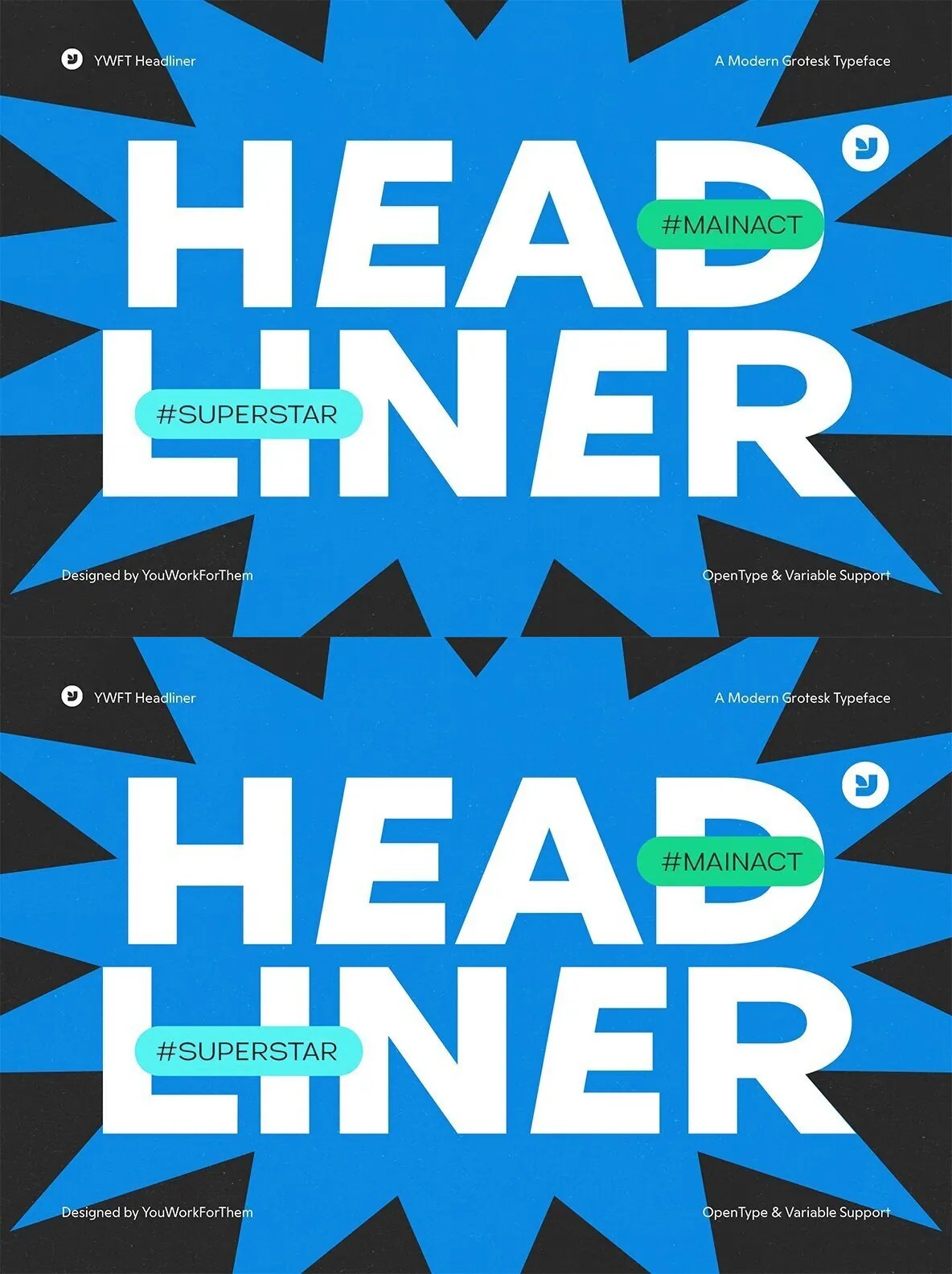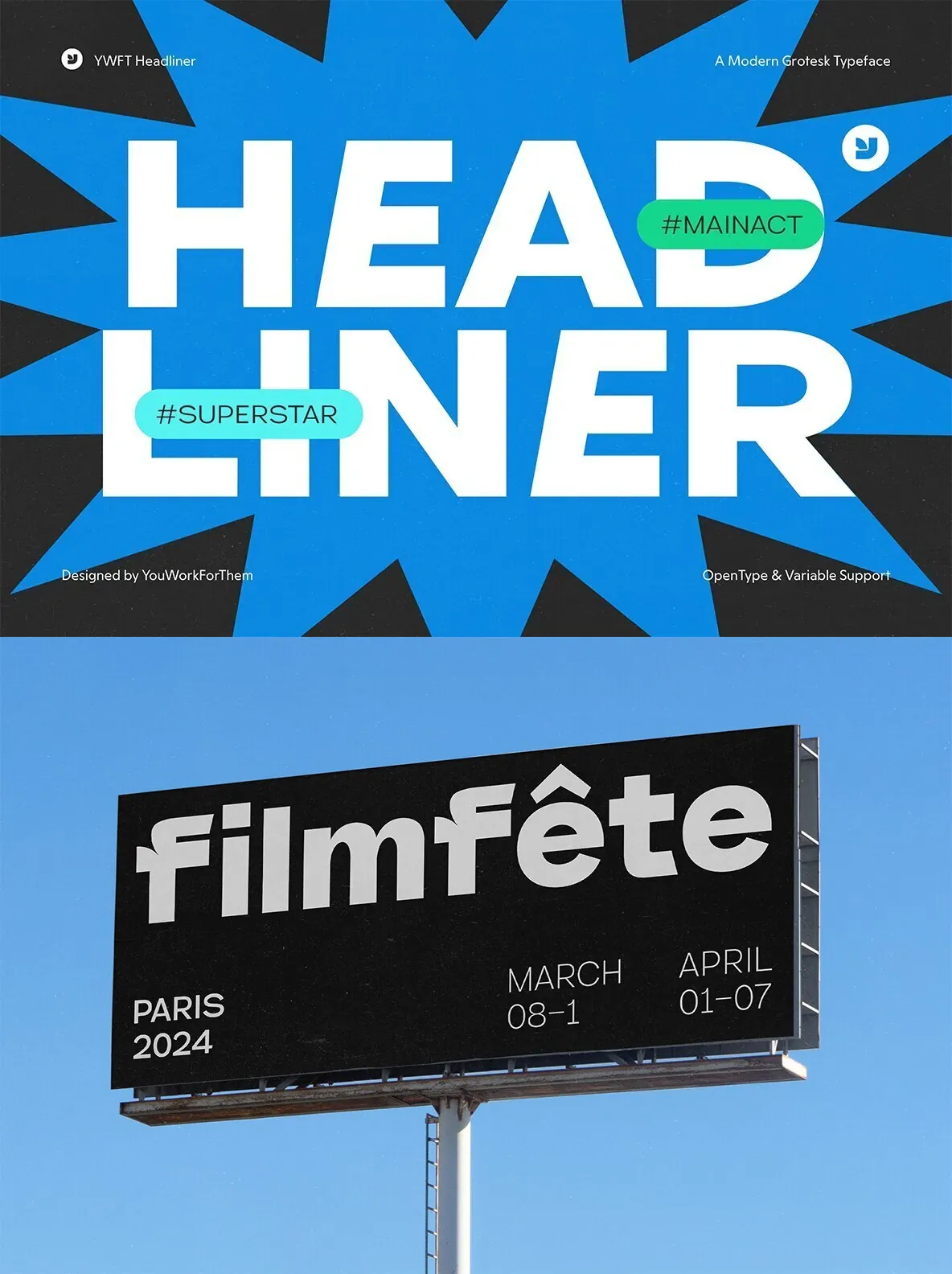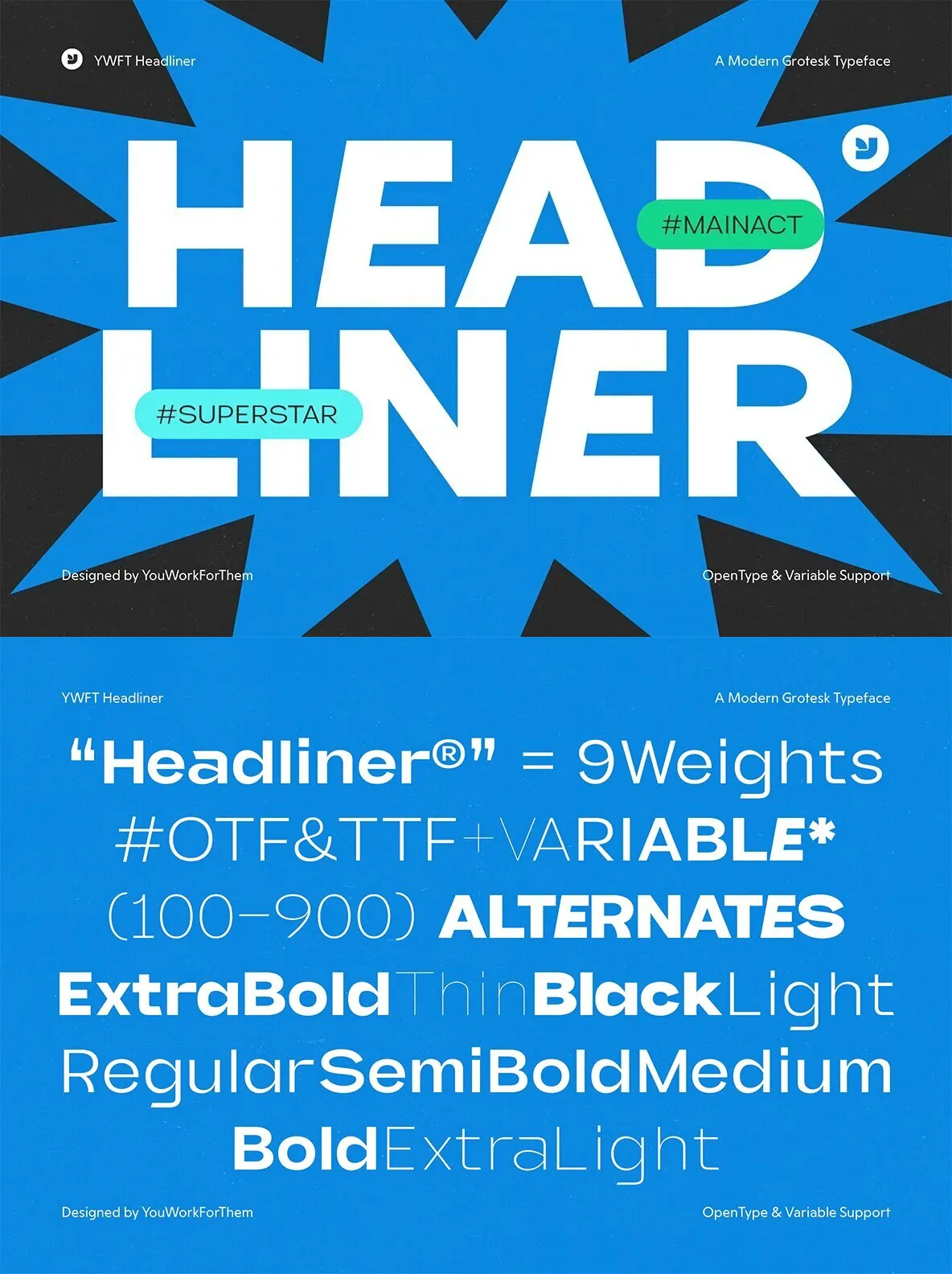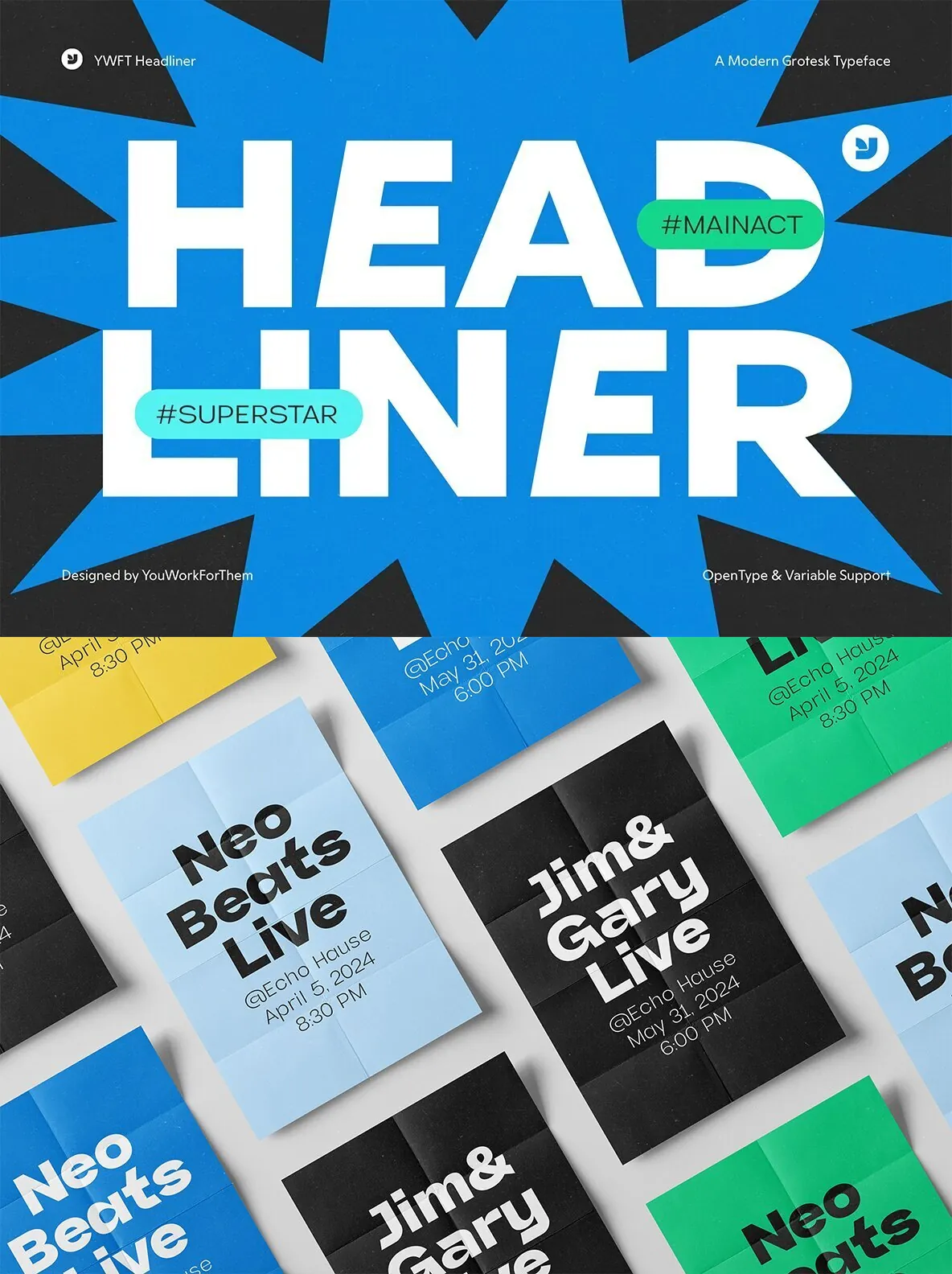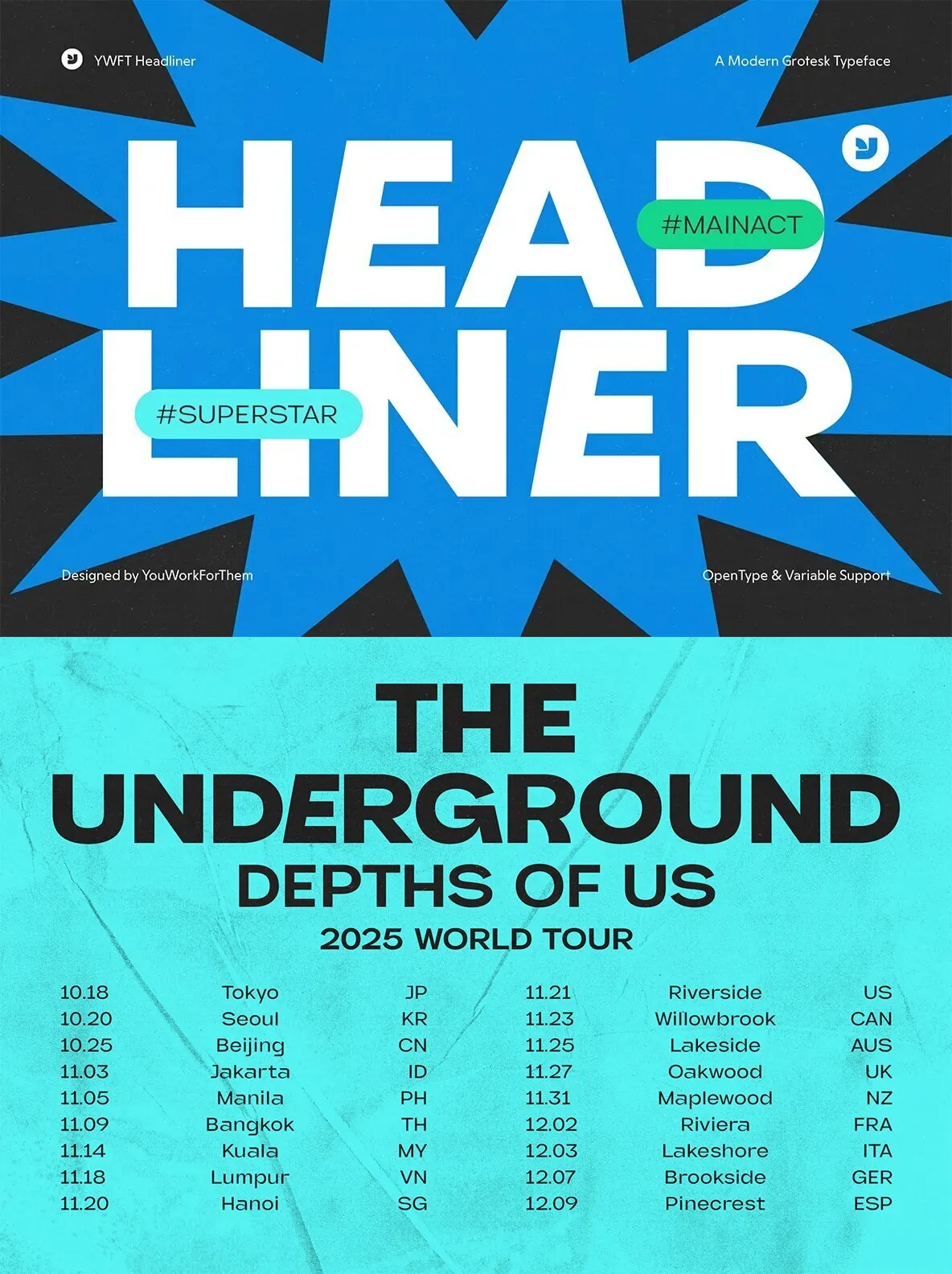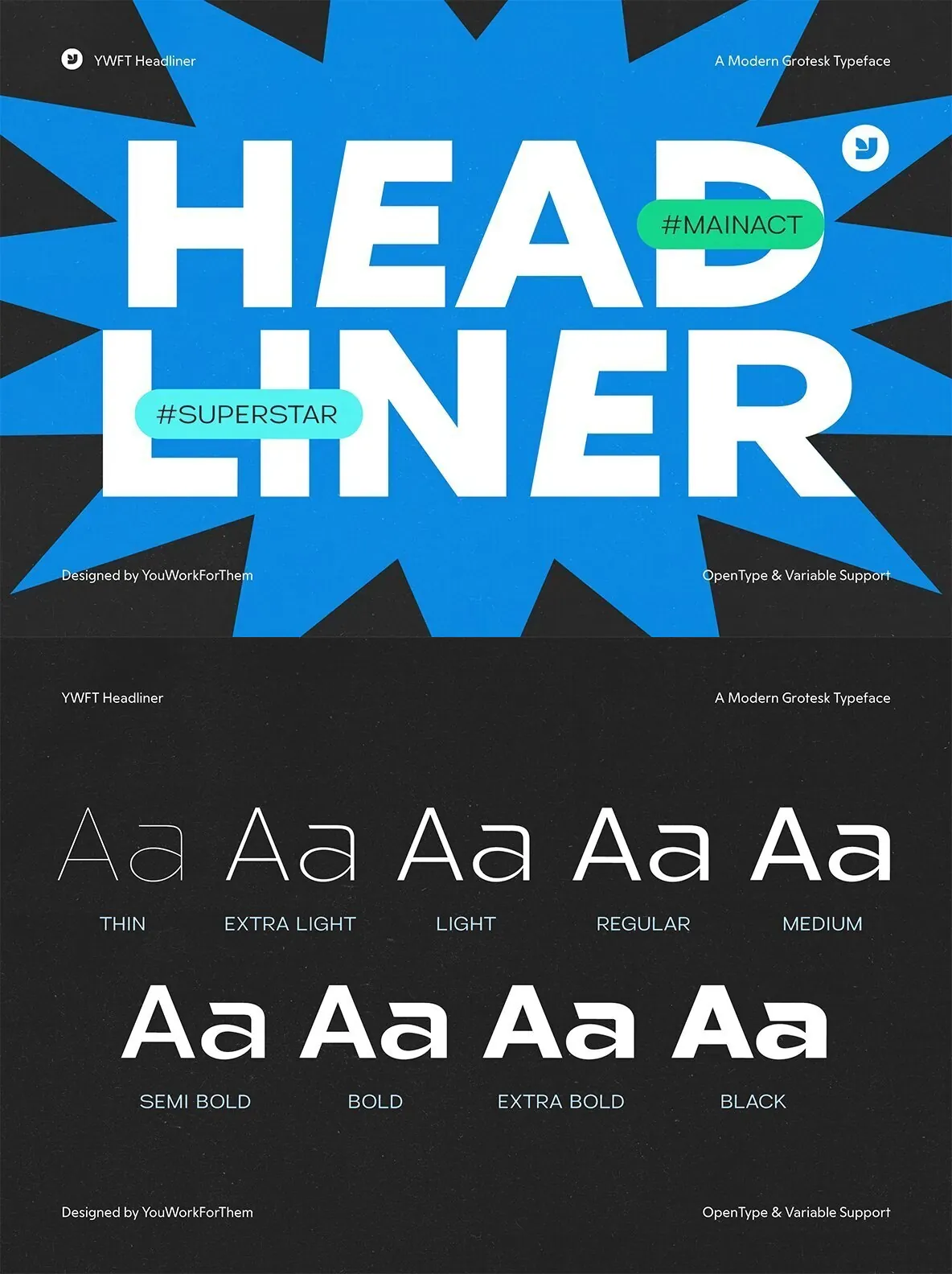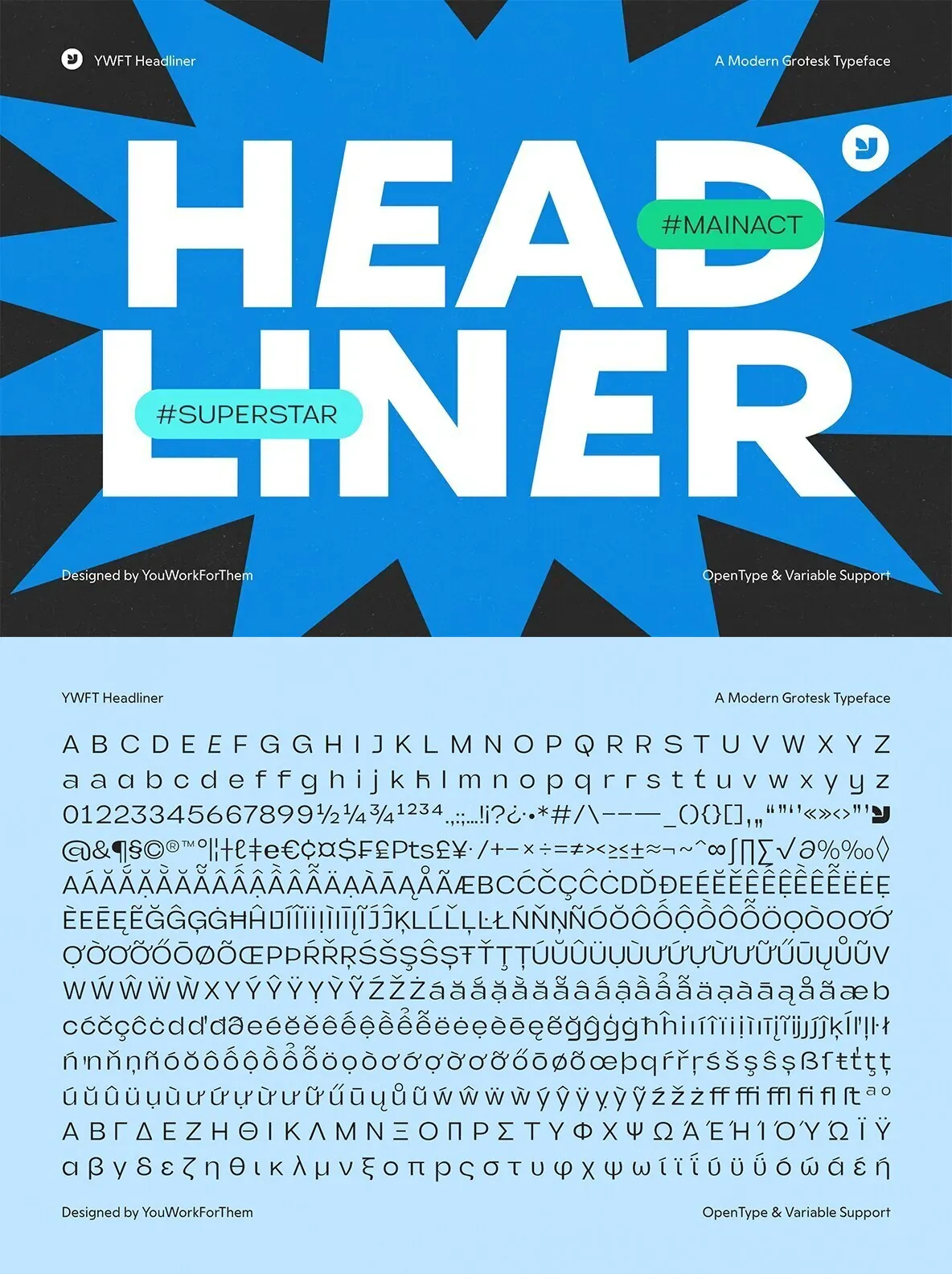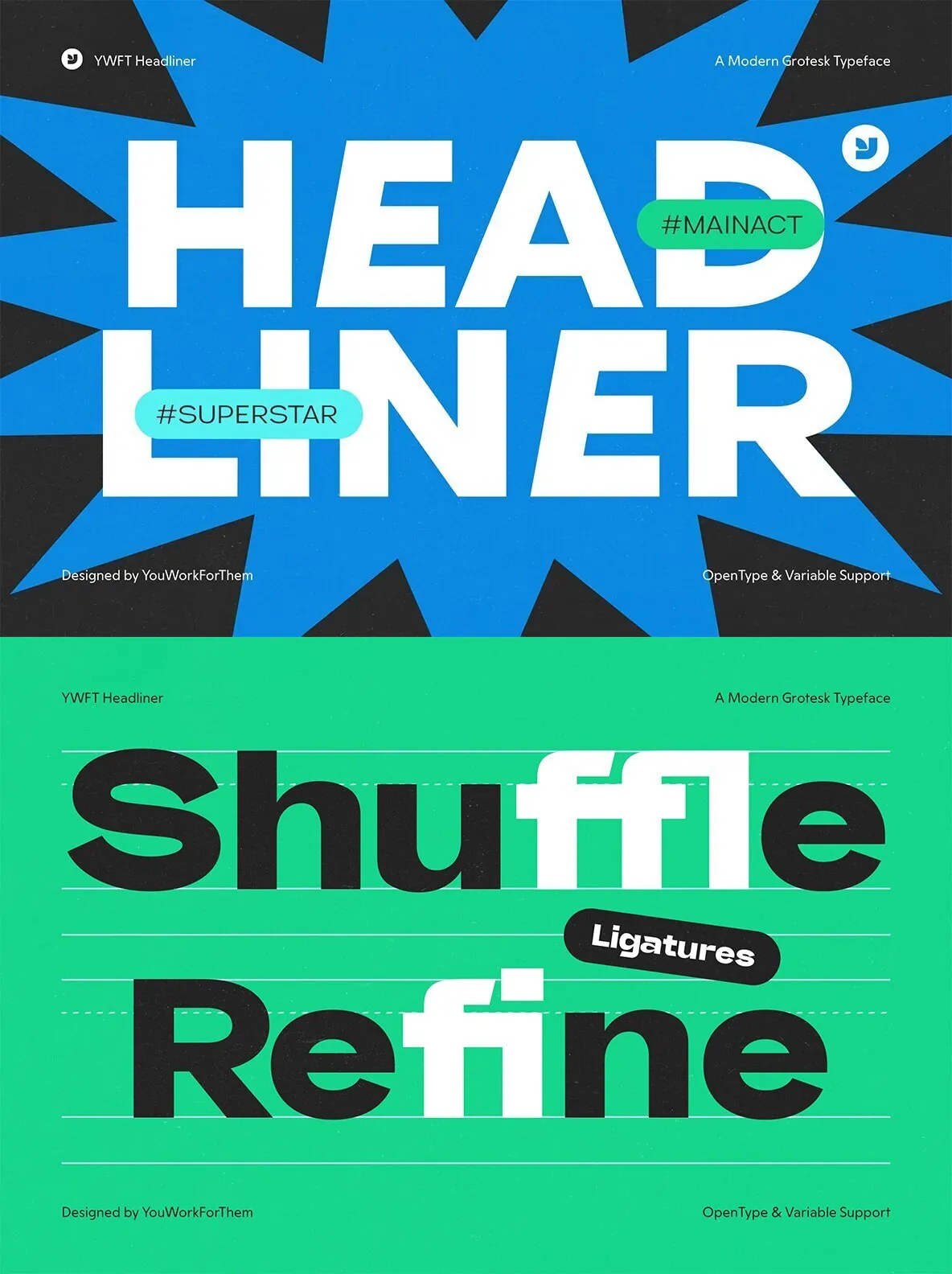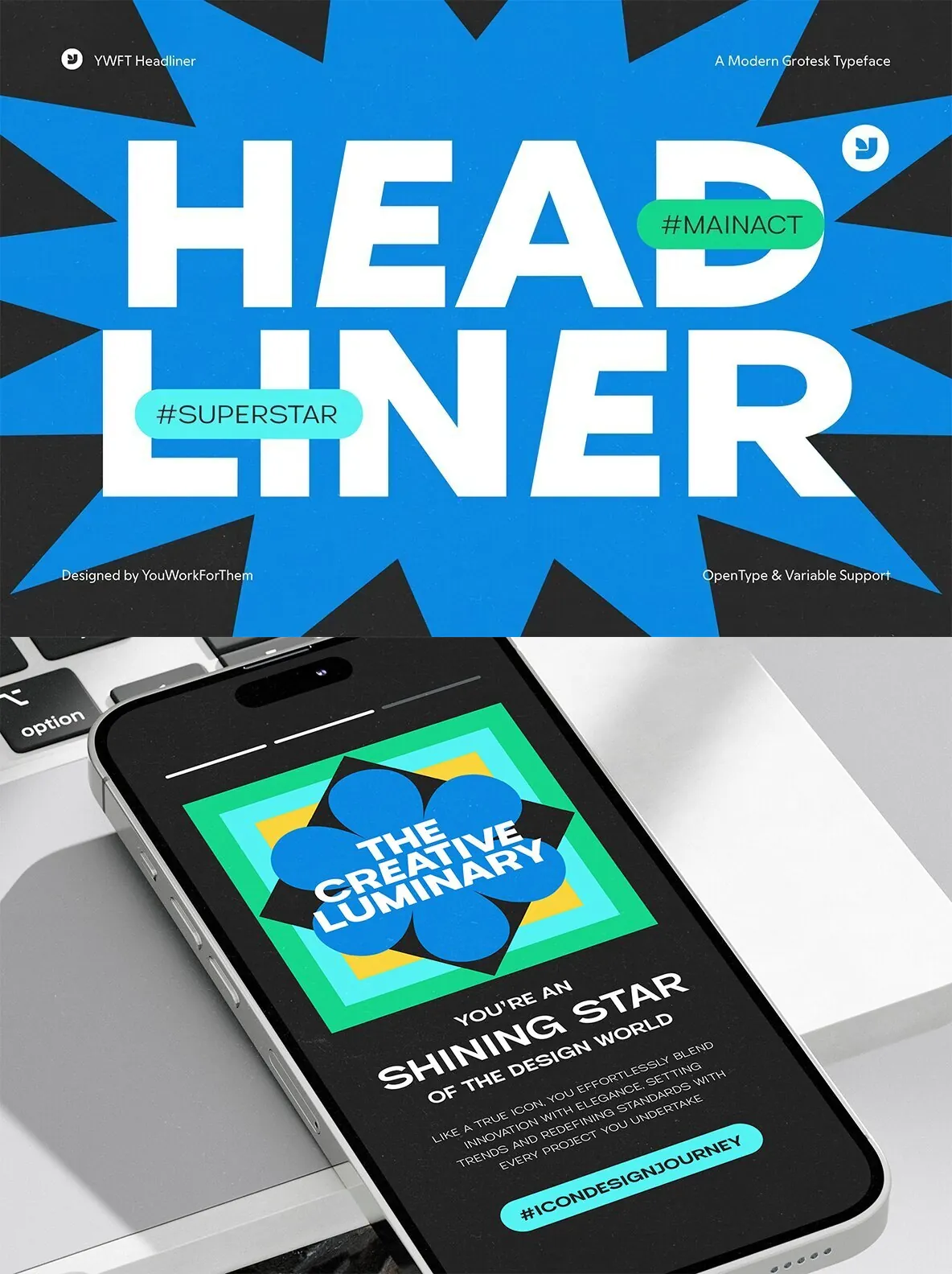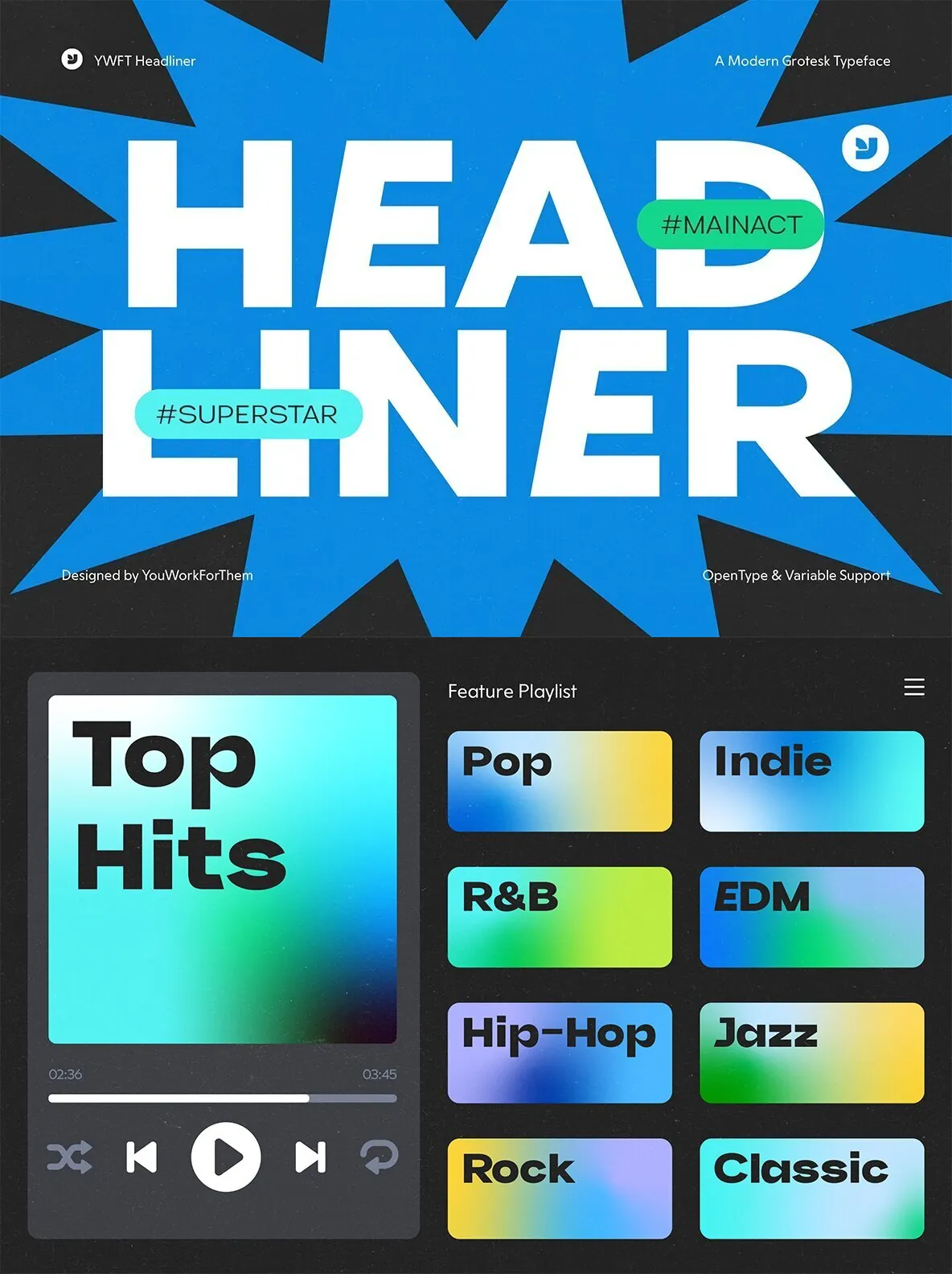
YWFT Headliner Font
YWFT Headliner — The Typeface Behind the Brand
YWFT Headliner is the grotesque sans-serif at the core of YouWorkForThem’s own identity. Designed in-house, it draws from the visual language of classic event typography while staying practical for digital-first work. Nine weights run from hairline-thin to full Black, with a variable font that spans the entire range in a single file. The 2026 update brings the most significant refinements since its release: redrawn letterforms on key characters including S, a, O, g, b, d, c, and C, a near-complete kerning rework across all weights, improved spacing with particular attention to the lighter cuts, and over 40 new glyphs. Curve quality is up while node count is down by as much as 40%.
Design & Visual Character
Headliner sits in the grotesque tradition — think the warmth of Aktiv Grotesk or the approachability of Proxima Nova — but with more personality at large sizes and very unique alternate options. The letterforms carry subtle quirks that read as neutral at text sizes and expressive at display scale. It’s wider and more open than geometric grotesques like Futura, and has more personalty than the bland design of Helvetica. That middle ground is what makes it adaptable: it can anchor a bold festival poster just as naturally as a clean SaaS interface. The weight range earns its breadth too — the lighter cuts are genuinely delicate, while Black holds its own at billboard scale. It performs best in headlines, logotype work, event branding, editorial layouts, and UI contexts where the type needs to carry visual weight without feeling aggressive.
OpenType & Language Support
OpenType support has been overhauled in 2026. Former .alt alternates have moved into organized Stylistic Sets, making them easier to access across applications. Alternate numeral forms are now available for 2, 3, 6, and 9. Full Vietnamese language support has been added alongside existing Greek and extended Latin coverage, bringing the total glyph count to over 610.
Font Features:
Nine weights plus variable font option (100–900)
610+ glyphs with Greek, Vietnamese, and extended Latin support
OpenType: Stylistic Sets, ligatures, alternate numerals
Redrawn core letterforms and optimized outlines (2026)
Near-complete kerning rework across all weights (2026)